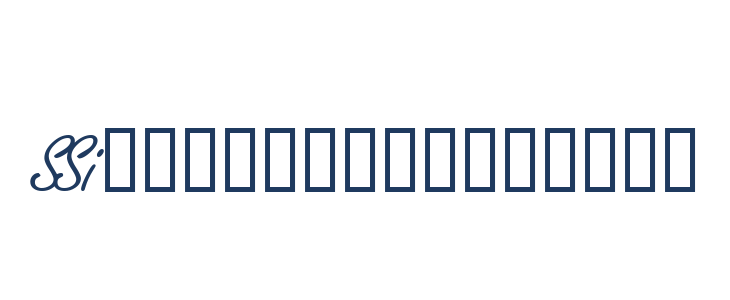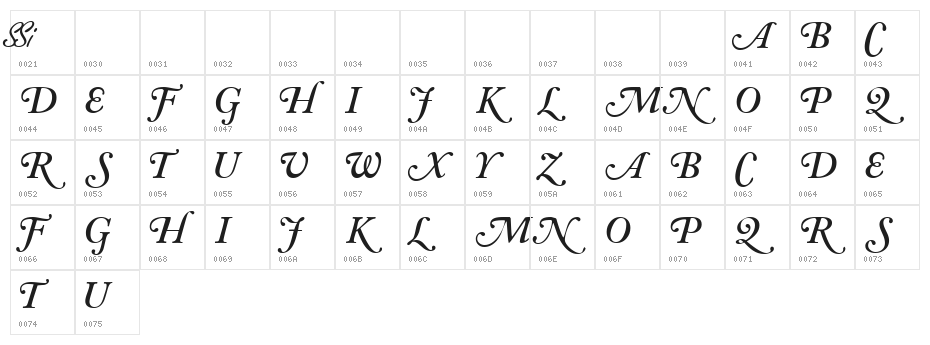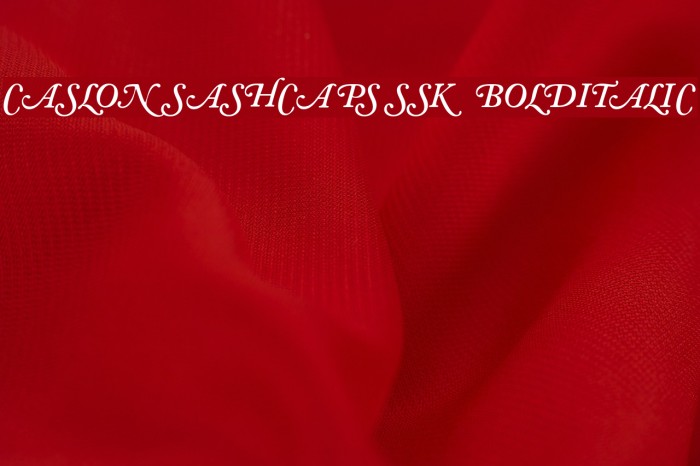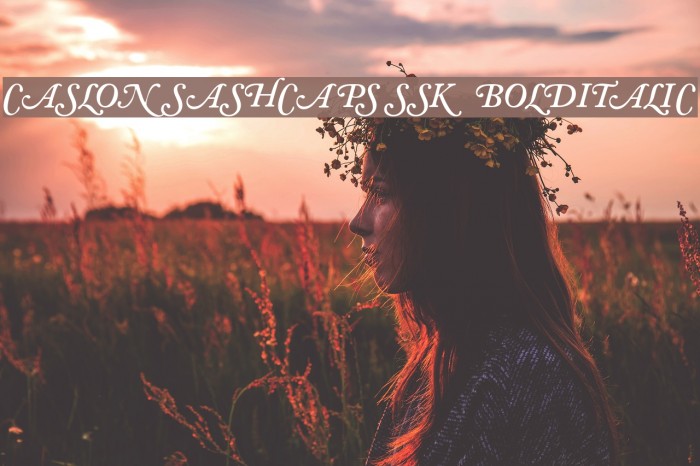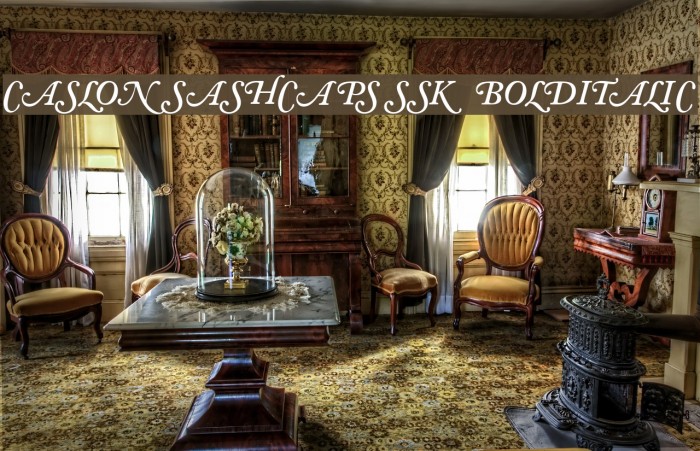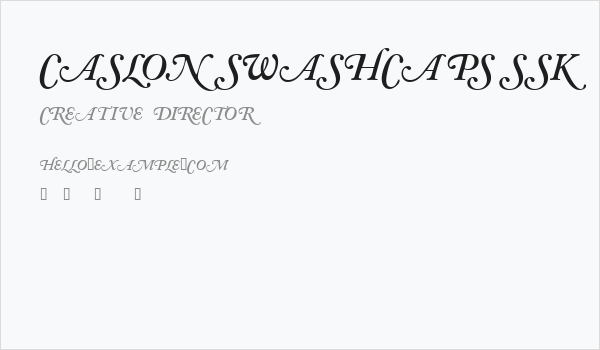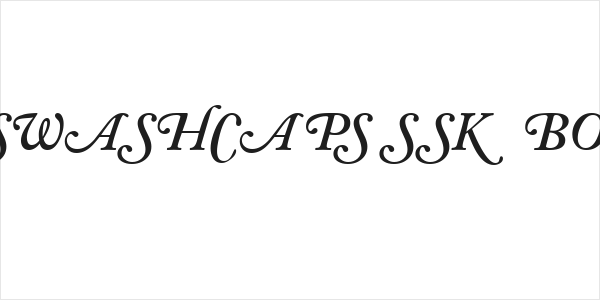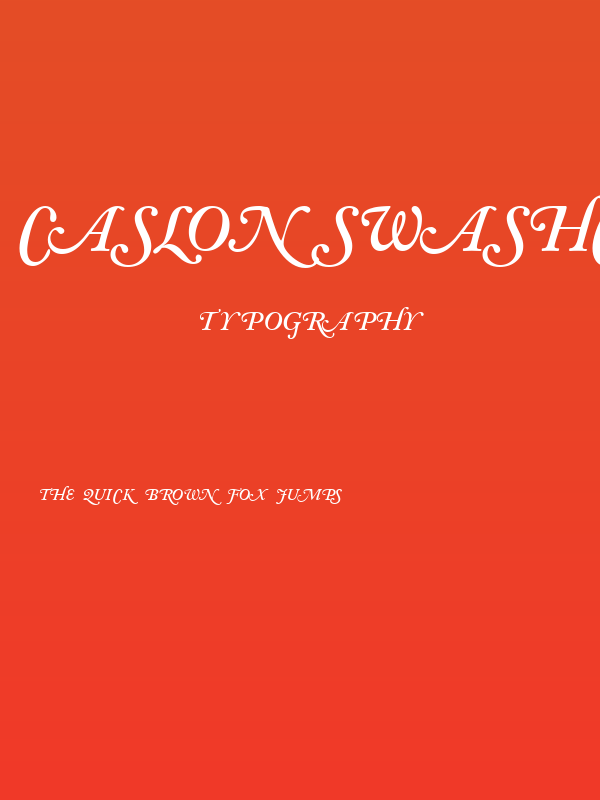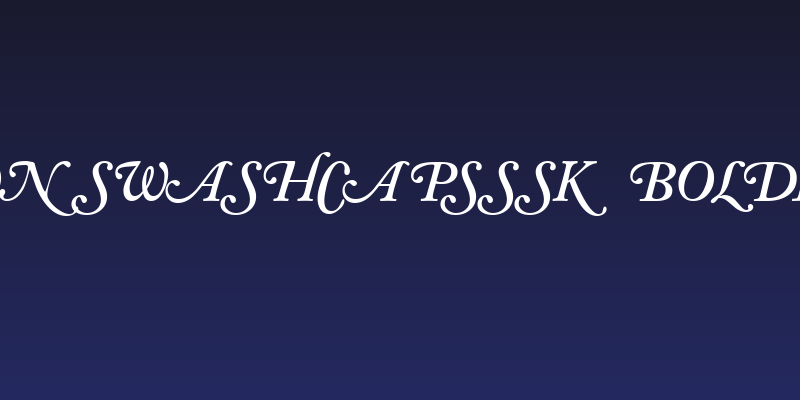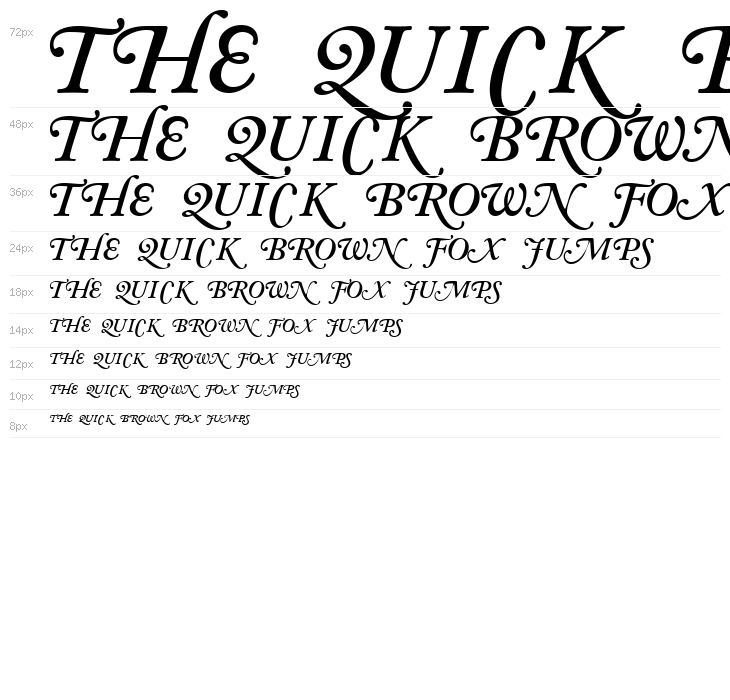
CaslonSwashCapsSSK BoldItalic Font
CaslonSwashCapsSSK BoldItalic Description
This font features elegant, flowing swashes that give it a sophisticated and classic appearance. The uppercase letters are adorned with decorative flourishes, adding a sense of movement and grace. The italic style enhances its fluidity, making it ideal for formal invitations, certificates, or any project that requires a touch of elegance. The bold weight provides a strong presence, ensuring readability while maintaining its ornate style. The character spacing is normal, allowing each letter to stand out without overcrowding. This font's high contrast in stroke thickness adds to its dramatic and eye-catching appeal.
Overall StyleClassic
Proposed ProjectsIdeal for wedding invitations, formal event programs, certificates, and luxury branding.